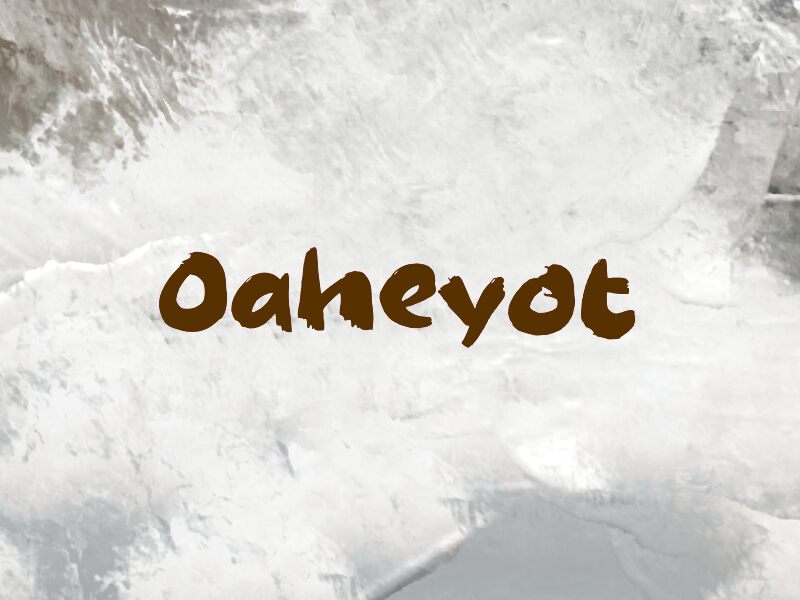
Oaheyot font created by Wepfont is a free brush font with an informal and casual tone. Very relaxed and friendly, this font steals its character from its organic, hand-drawn strokes. Perfect for modern applications, it is a fantastic choice for branding, packaging, informal communication, and more.
Use it in your social media graphics, website design, poster design, or stationery design. This font would look exceptionally well on logo designs especially that of small and startup businesses. Craft, flower, or natural food establishments are among the many examples where such designs can be put to work.
Oaheyot is a modern and stylish free font designed to elevate your creative projects. With its unique character set and versatility, it is perfect for both print and digital applications. Whether you are designing a logo, crafting an invitation, or creating eye-catching social media graphics, Oaheyot will add a touch of sophistication to your work.